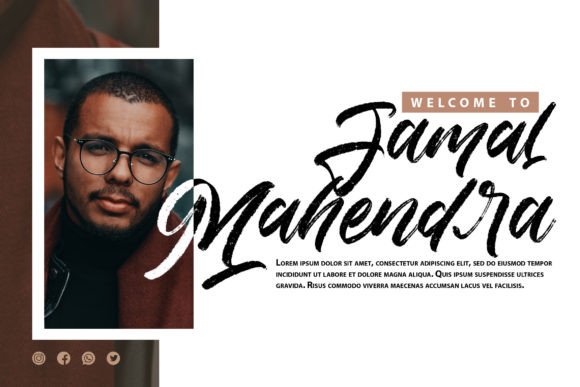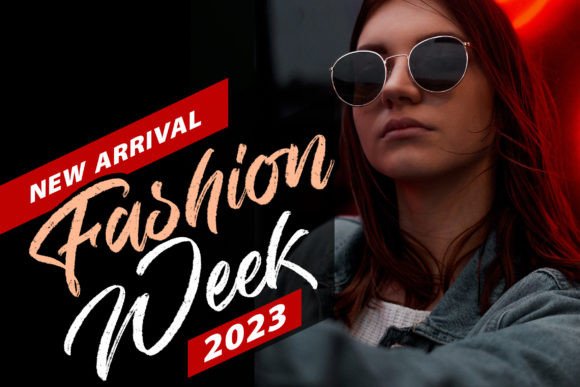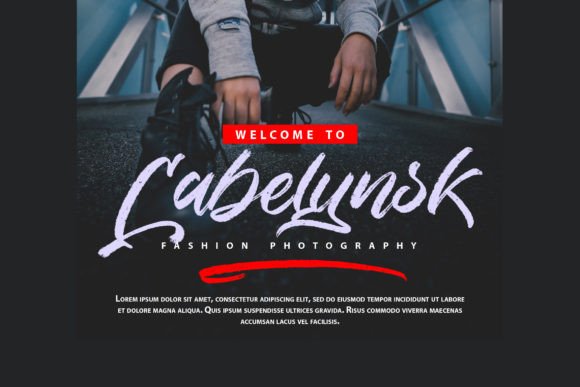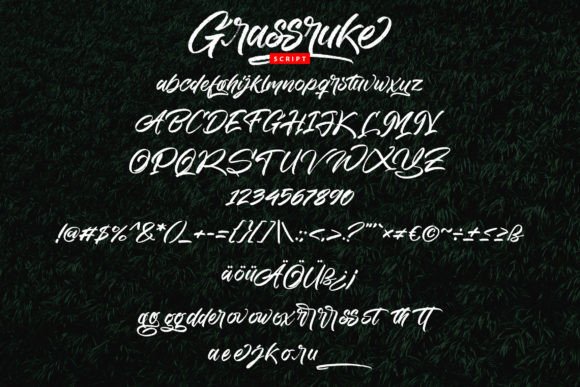
Introducing Grassruke Font: The Bold and Trendy Brush Script Font
Are you tired of using the same old fonts in your creative projects? Look no further than Grassruke Font, a bold and trendy brush script font that’s sure to take your designs to the next level. With its unique and eye-catching style, Grassruke is the perfect addition to any project that requires a touch of personality and flair.
What is Grassruke Font?
Grassruke Font is a brush script font that’s designed to add a bold and trendy touch to your creative projects. Its unique brush strokes and fluid letterforms make it perfect for designs that require a personal and artistic touch. Whether you’re working on a logo, brochure, or social media graphic, Grassruke Font is sure to make your project stand out.
Key Features of Grassruke Font
- Bold and Trendy: Grassruke Font is designed to make a statement. Its bold and trendy style is perfect for designs that require a touch of confidence and personality.
- Brush Script Style: The font features fluid brush strokes and letterforms that give it a unique and artistic look.
- Easy to Read: Despite its bold style, Grassruke Font is easy to read and works well in a variety of contexts.
- Highly Versatile: Grassruke Font can be used in a wide range of creative projects, from logos and brochures to social media graphics and more.
Benefits of Using Grassruke Font
So why should you choose Grassruke Font for your creative projects? Here are just a few benefits of using this amazing font:
- Adds Personality to Your Designs: Grassruke Font is the perfect way to add a touch of personality and flair to your designs.
- Stand Out from the Crowd: With its unique and eye-catching style, Grassruke Font is sure to make your project stand out from the crowd.
- High-Quality Design: The font is designed to high-quality standards, ensuring that it looks great in any context.
Tips for Getting the Most Out of Grassruke Font
Here are a few tips for getting the most out of Grassruke Font:
- Use it Sparingly: While Grassruke Font is bold and trendy, it can be overwhelming if used too much. Use it sparingly to add a touch of personality to your designs.
- Pair it with Other Fonts: Grassruke Font pairs well with other fonts, so don’t be afraid to experiment with different combinations.
- Experiment with Colors: The font looks great in a variety of colors, so experiment with different options to find the one that works best for your design.